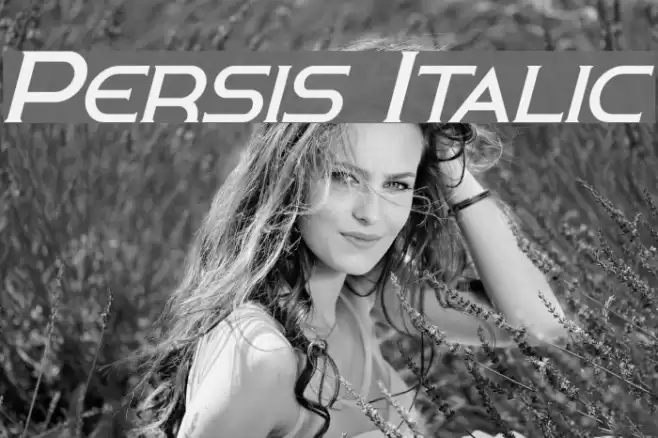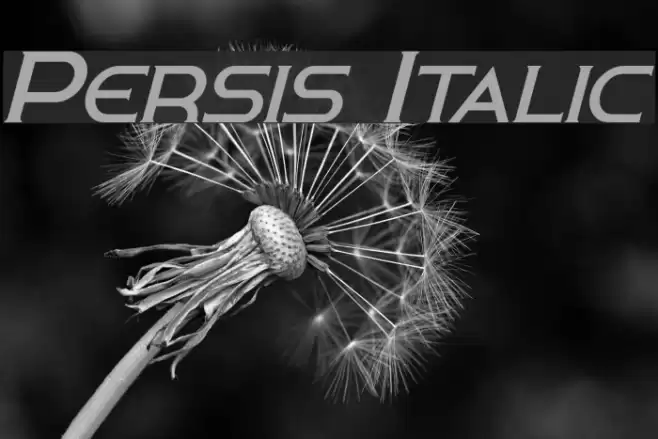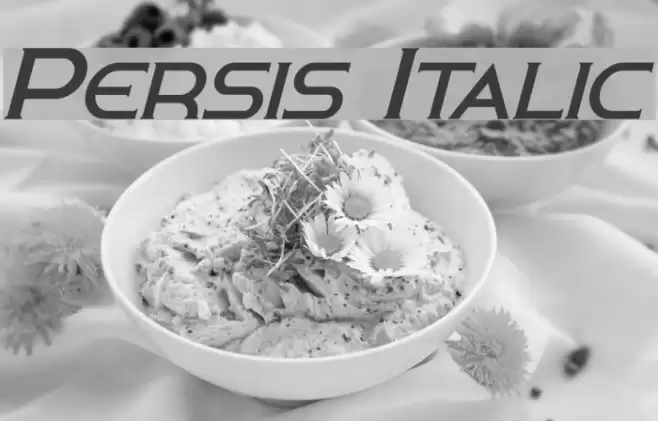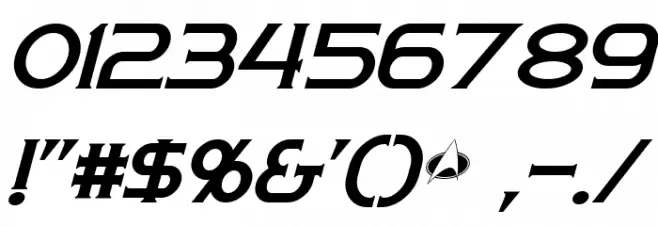
Persis Italic Font
Persis Italic Description
This font features a sleek, italicized design with a modern and dynamic appearance. The characters are slightly slanted, giving a sense of motion and elegance. The strokes are consistent in thickness, providing a uniform look across all characters. The uppercase and lowercase letters maintain a cohesive style, with clean lines and sharp angles. The numerals are distinct and easy to read, complementing the overall aesthetic. Special characters are well-integrated, maintaining the font's streamlined and contemporary feel.
A modern, italicized font with sleek lines and a dynamic appearance from Uncategorized fonts.
- Proposed Projects: Ideal for branding, advertising, and digital media projects that require a modern and energetic look.
- Use Case: Headlines, Logos, Digital media